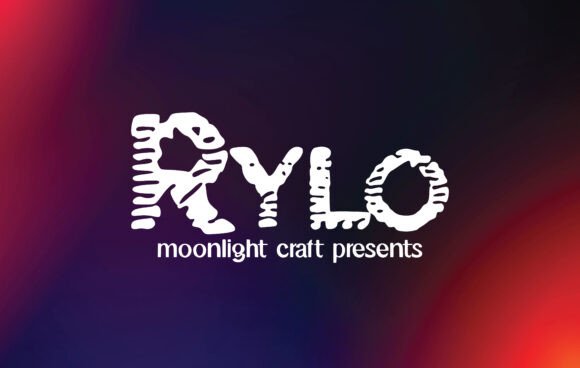
Rylo Font: Elevate Your Creative Projects with Style and Versatility
Are you tired of using the same old fonts in your creative projects? Look no further than Rylo Font, a modern and versatile typeface that is sure to become a go-to favorite in your collection. With its perfect blend of style and readability, Rylo Font is ideal for a wide range of applications, from magazine headlines and t-shirts to social media posts and wedding invitations.
Key Features of Rylo Font
- Easy to Read: Rylo Font is designed to be highly legible, making it perfect for both titles and body text.
- Versatile: This font works beautifully in a variety of contexts, from formal to informal, and can be used for both print and digital media.
- Stylish: Rylo Font has a unique and modern aesthetic that adds a touch of sophistication to any design.
10 Creative Ways to Use Rylo Font
- Magazine Headlines: Use Rylo Font to create eye-catching headlines that grab readers’ attention. Its bold and stylish design makes it perfect for magazine covers, section headers, and article titles.
- T-Shirts and Apparel: Rylo Font is a great choice for designing t-shirts, hoodies, and other apparel. Its modern and trendy look makes it perfect for fashion brands, and its readability ensures that your message gets across clearly.
- Social Media Posts: Stand out on social media with Rylo Font. Use it to create engaging and stylish posts that capture your audience’s attention. Its versatility makes it suitable for a wide range of social media platforms, from Instagram to Facebook.
- Branding Materials: Establish your brand’s identity with Rylo Font. Use it to create business cards, brochures, and other marketing materials that reflect your brand’s personality and style.
- Wedding Invitations: Make your wedding invitations truly special with Rylo Font. Its elegant and sophisticated design makes it perfect for formal events, and its readability ensures that all the important details are clear and easy to read.
- Greeting Cards: Use Rylo Font to create beautiful and heartfelt greeting cards for special occasions. Its stylish design and versatility make it suitable for a wide range of card types, from birthdays to holidays.
- Packaging Design: Rylo Font is a great choice for packaging design. Use it to create labels, product names, and other packaging elements that reflect your brand’s personality and style.
- Signage: Rylo Font is perfect for signage, whether you’re creating a storefront sign, a directional sign, or a promotional sign. Its bold and stylish design makes it easy to read and visually appealing.
- Digital Products: Use Rylo Font to create digital products, such as ebooks, guides, and tutorials. Its readability and versatility make it perfect for digital content.
- Art Projects: Rylo Font is a great choice for art projects, whether you’re creating a painting, a sculpture, or a digital art piece. Its unique and modern aesthetic adds a touch of sophistication to any art project.
Rylo Font Typography
Rylo Font is designed to be highly legible and versatile, making it perfect for a wide range of typography applications. Its modern and stylish aesthetic is characterized by:
- Clean Lines: Rylo Font features clean lines and a minimalist design that makes it easy to read and visually appealing.
- Geometric Shapes: The font’s geometric shapes and curves create a unique and modern aesthetic that adds a touch of sophistication to any design.
- High Contrast: Rylo Font features high contrast between thick and thin lines, making it perfect for headlines and titles.
Rylo Font vs. Other Fonts
So, how does Rylo Font compare to other fonts on the market? Here are a few key differences:
- Unique Aesthetic: Rylo Font has a unique and modern aesthetic that sets it apart from other fonts.
- High Legibility: Rylo Font is designed to be highly legible, making it perfect for both titles and body text.
- Versatility: Rylo Font is incredibly versatile, making it suitable for a wide range of applications and contexts.
In conclusion, Rylo Font is a modern and versatile typeface that is perfect for a wide range of creative projects. Its unique and stylish aesthetic, combined with its high legibility and versatility, make it a great choice for designers, artists, and writers. Whether you’re creating magazine headlines, t-shirts, social media posts, or wedding invitations, Rylo Font is sure to elevate your designs and add a touch of sophistication.